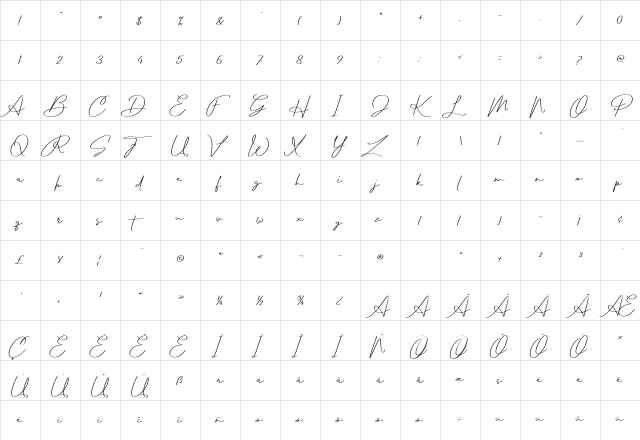
Balmond Italic
Design Context for Balmond Typeface
Balmond is a composed and adaptable typeface that performs quietly and consistently across a wide range of design contexts. The dynamic lean of this cut emphasises speed and emphasis in any layout.
Pro Tip: Try Balmond for annotation and caption copy alongside an upright companion — the contrast in angle creates a dynamic but ordered typographic system.